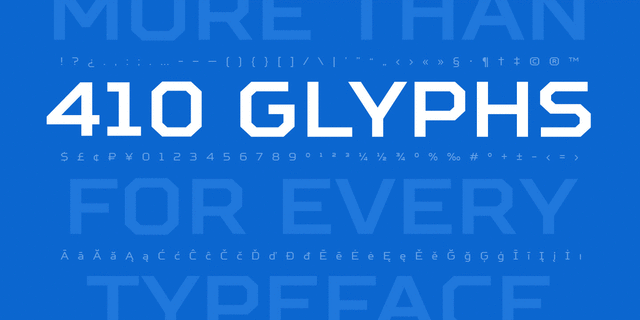
Exclusive fontfamily style: octagonal and simple at the same time. Squares created for infographics and statistics. This is the font that will be good to exist in the design of the future, as well as any military attributes. Most popular typefaces formula: Thin, Light, Regular, Bold, Black and Italics. Squares are ideal for short inscriptions and long text blocks. Designed in TypeType studio in 2014.
Associations for font family TT SquaresTypeface personality and character:
flat, square, accurate, logical, cold, automatic, technogenic, solid, static, cutting, crisp, stable, thin, easy, rectangular, urban, modern, machine, sharp, engineering, urbanistic, schematic, glass, fragile, futuristic, wire, faceted, simple, reliable, self-assured, steel, space, indifferent, chopped, convincing, serious, strong, industrial, iron, manly, military, army, railway, fast, high-speed, sportive, workman, cinematic, game, racing, heavy, powerful, formidable, severe, authoritative, rude, loud, durable, daring, important, monumental, tough, ambitious, sexy, brutal
constructor, scheme, architecture, engineer, automation, urban studies, science, design, city, statistics, gadget, electronics, technology, sci-fi, space, tool, robot, game, device, IT specialist, IT, android, hardware, coworking, x-ray, astronomy, car, industry, war, army, weapons, factory, metallurgy, machine tool, packing, stock, port, box, ammunition, equipment, repairs, depot, helmet, uniform, railway carriage, aviation, aircraft, machine, Shooter, action, transport, airsoft, footwear, railway, computer game, sport, mechanical engineering, security, protection, fuel, police, construction, building, brick, bus, workman, cinema, cubes, lego, cybersport, selfie, race, speed, rally, Delivery, power station, tank, truck, fitness equipment, excavator, SUV, blockbuster, thriller, trucker, rap music, concert, Superhero, disco, aquadiskotheque, energy industry, motor, engine Typeface exhibits stylistic traits: